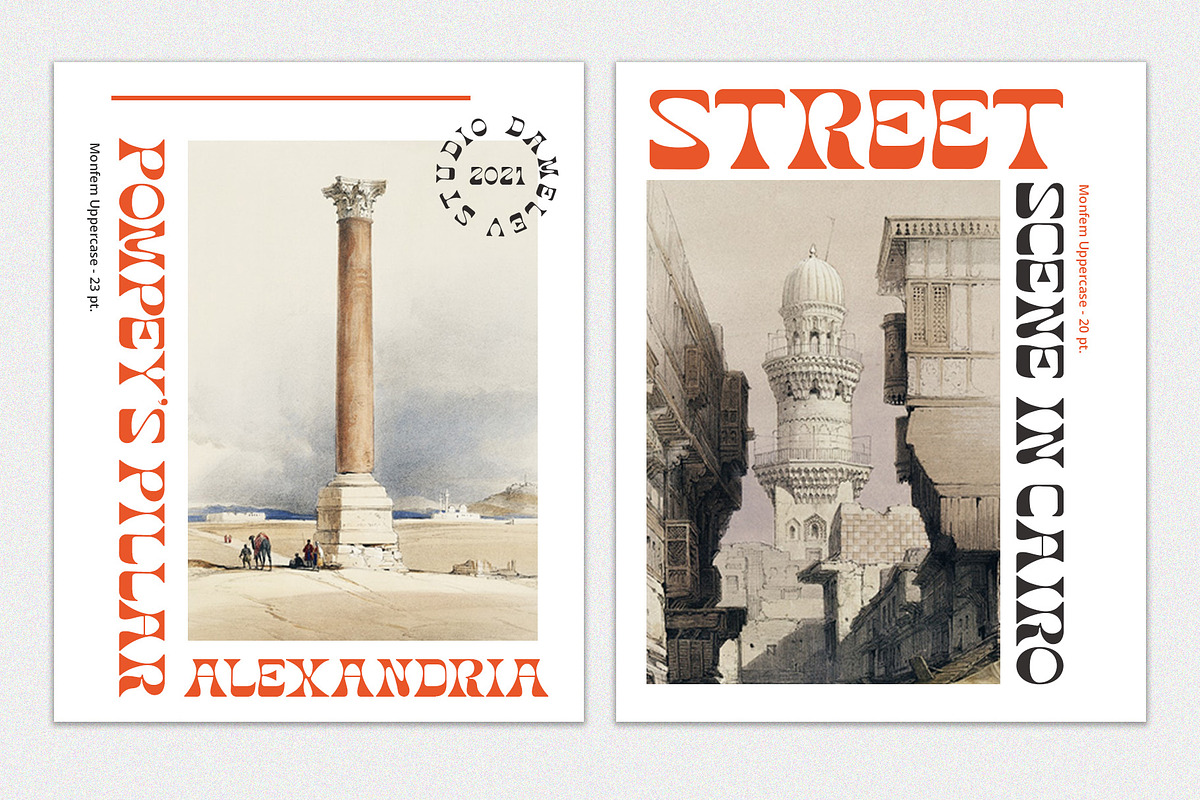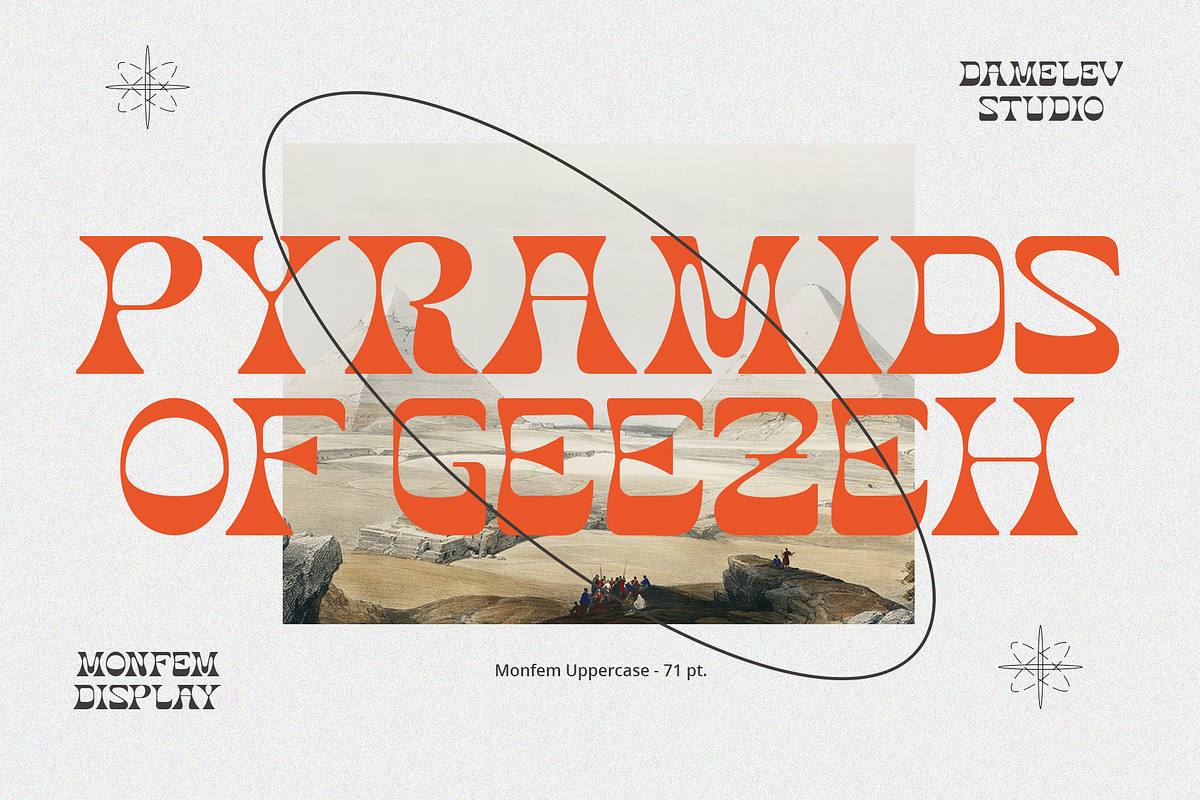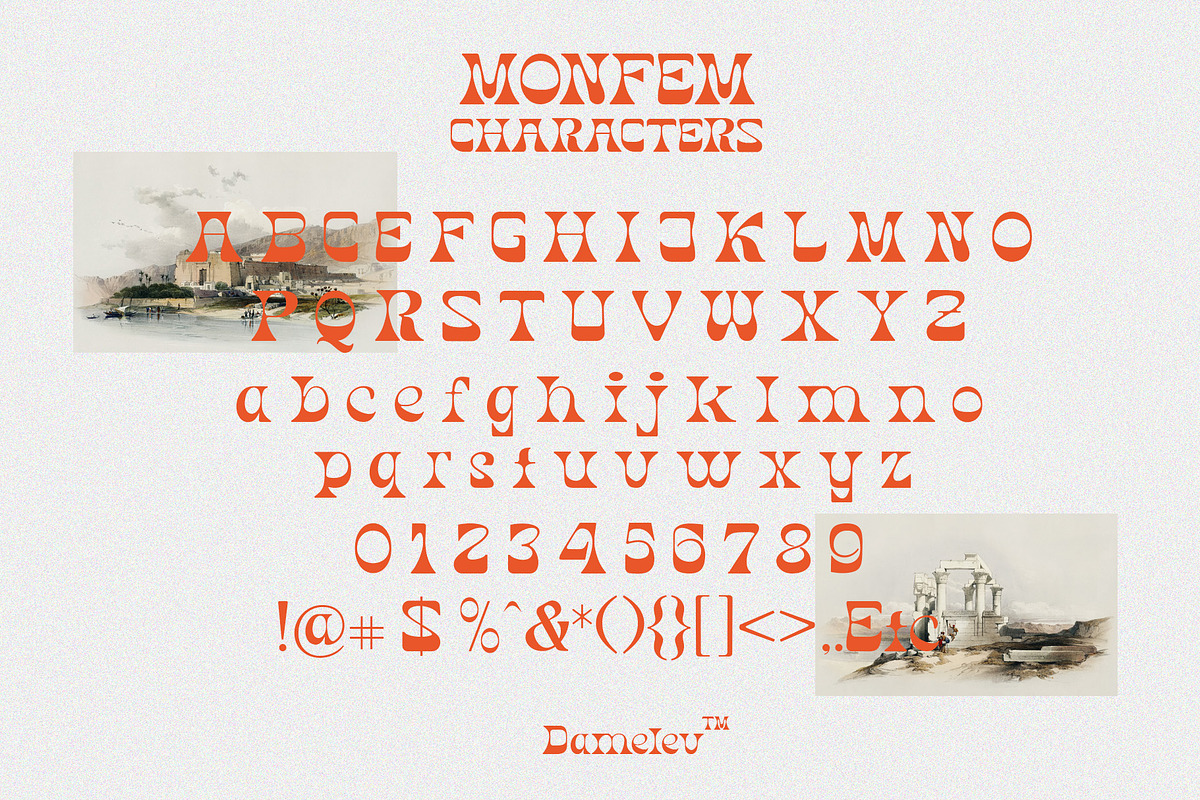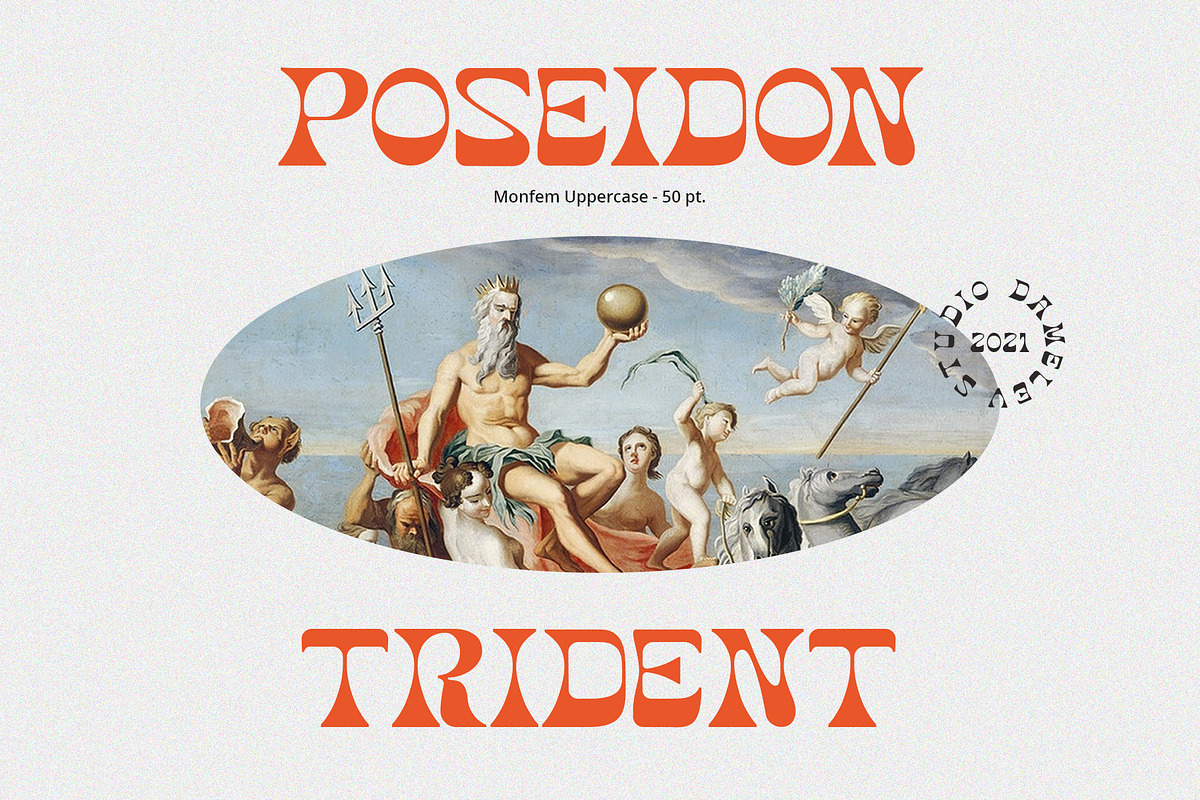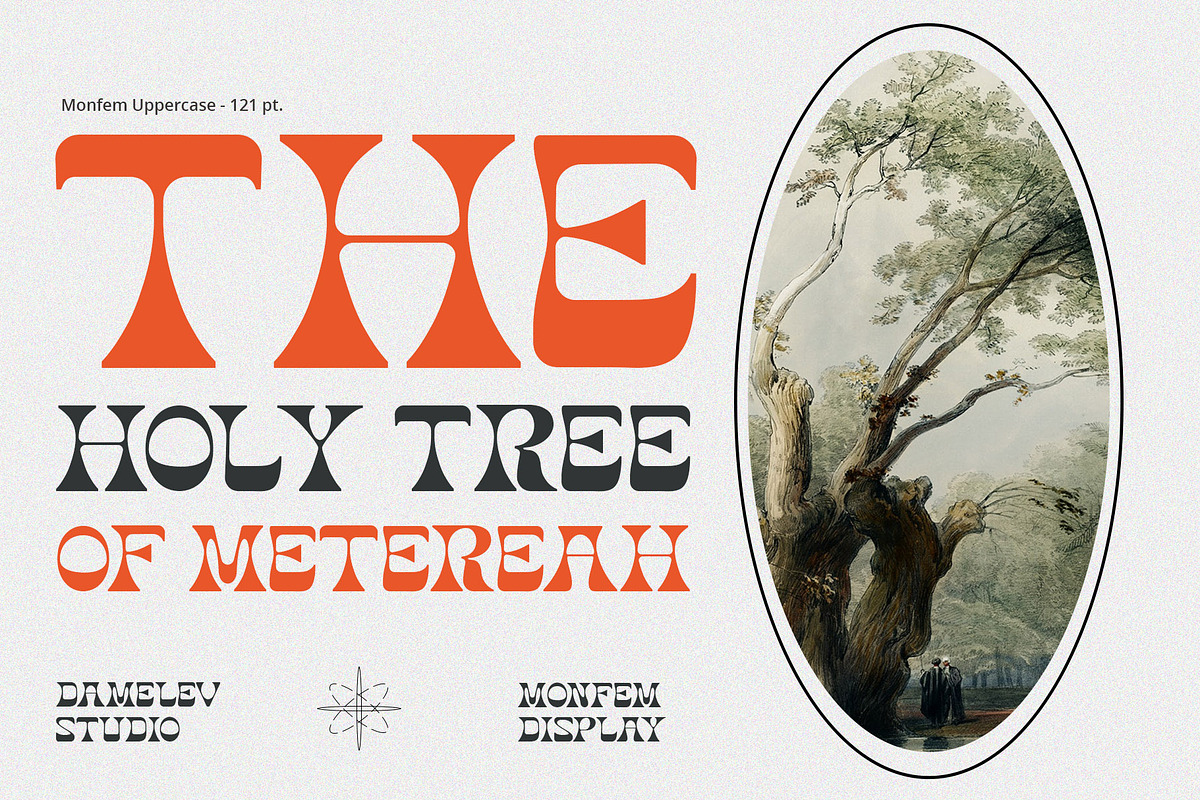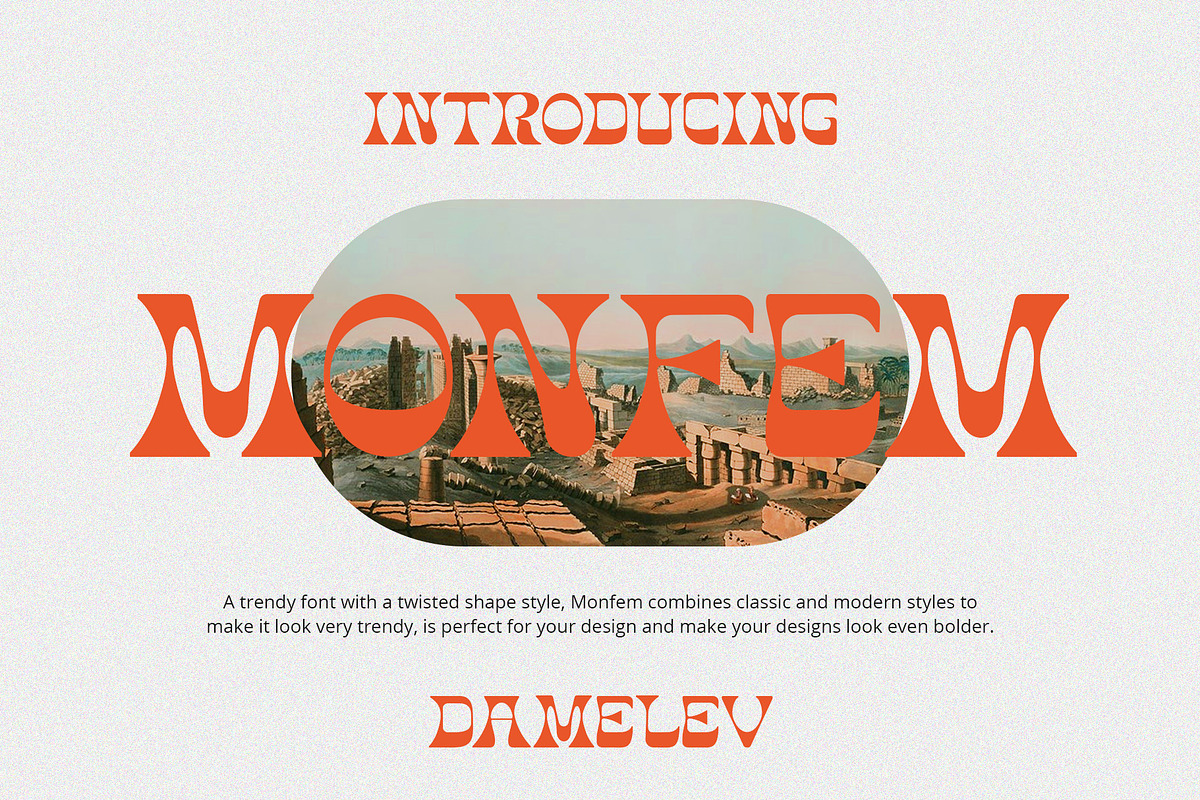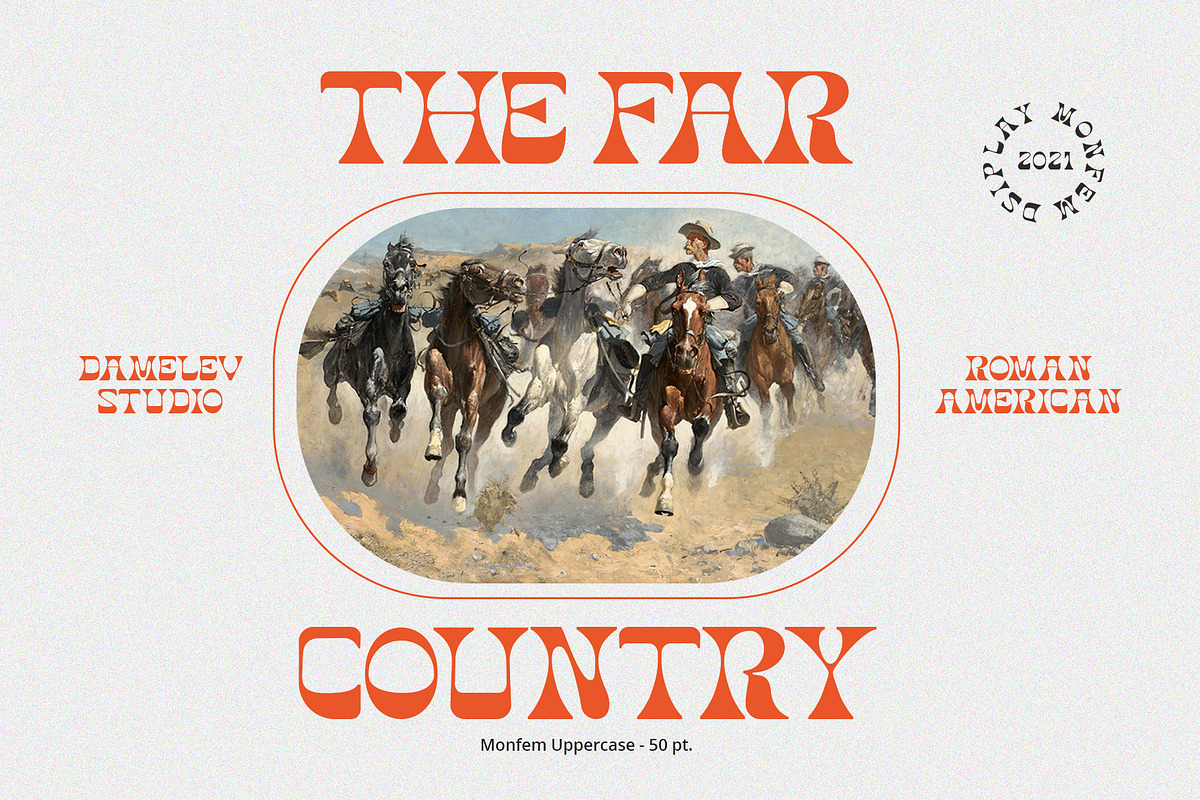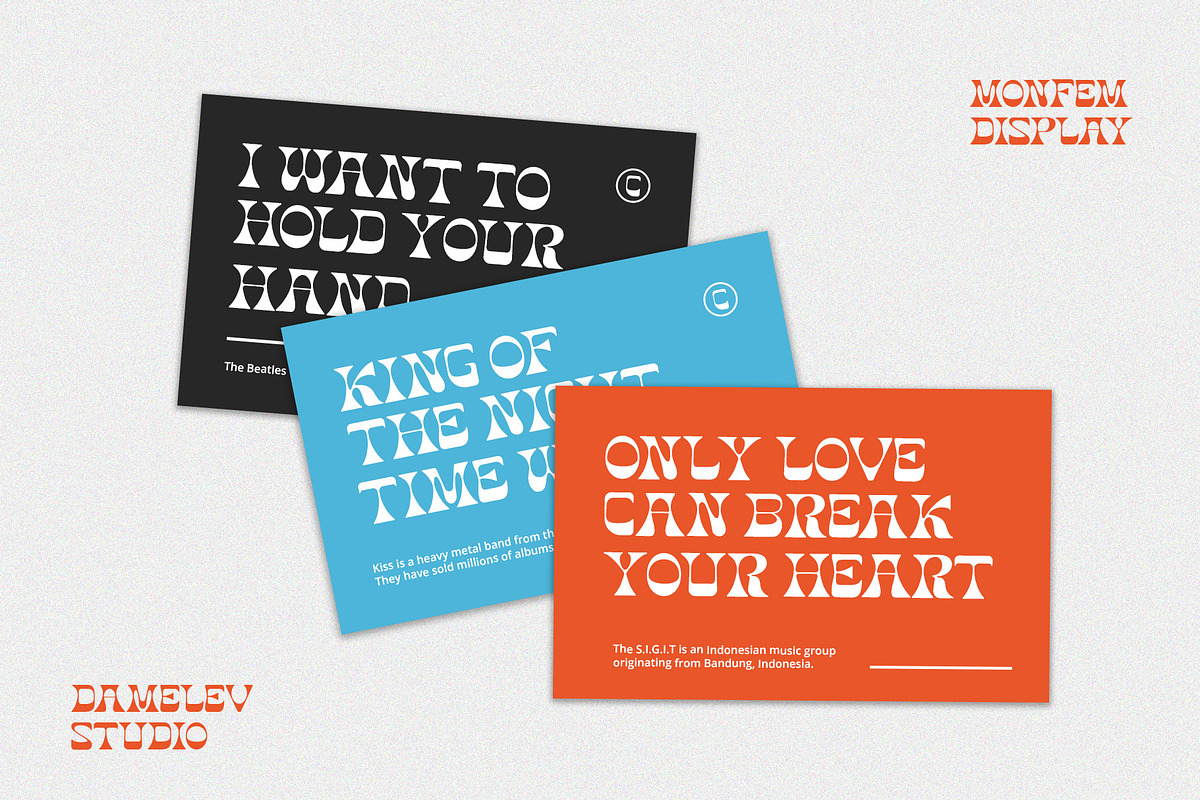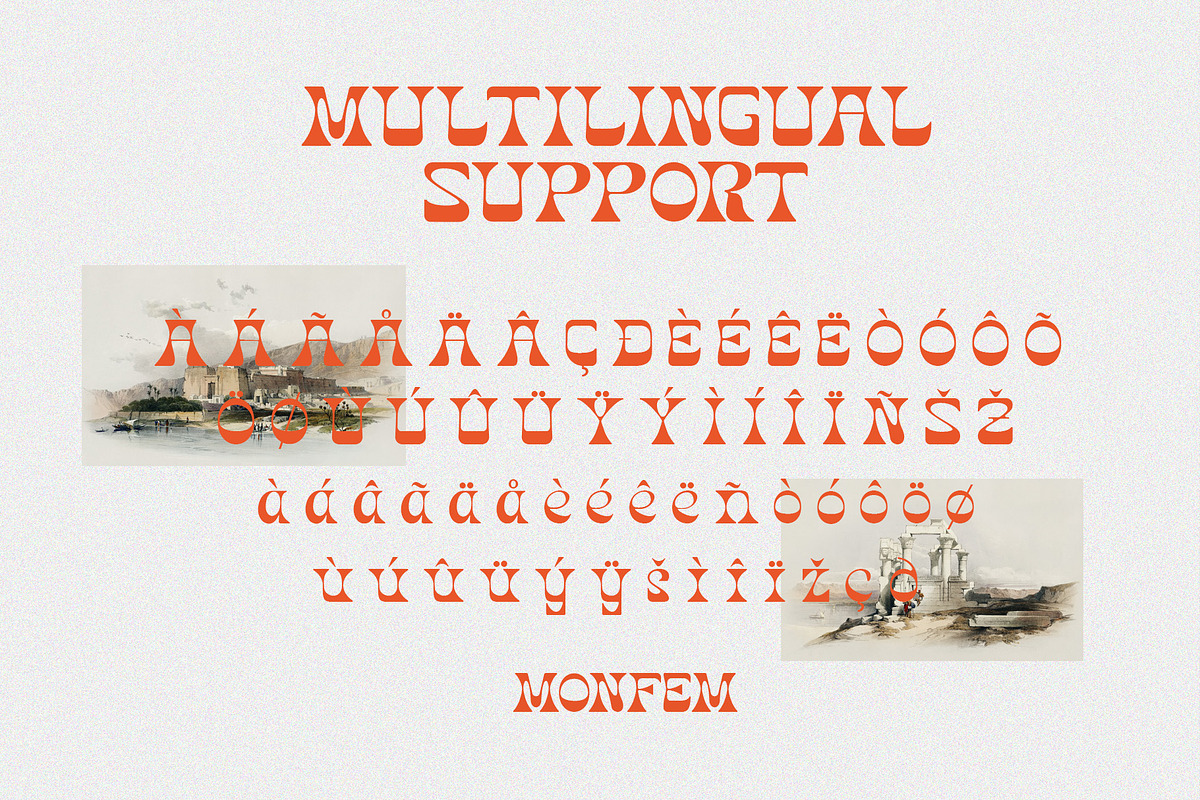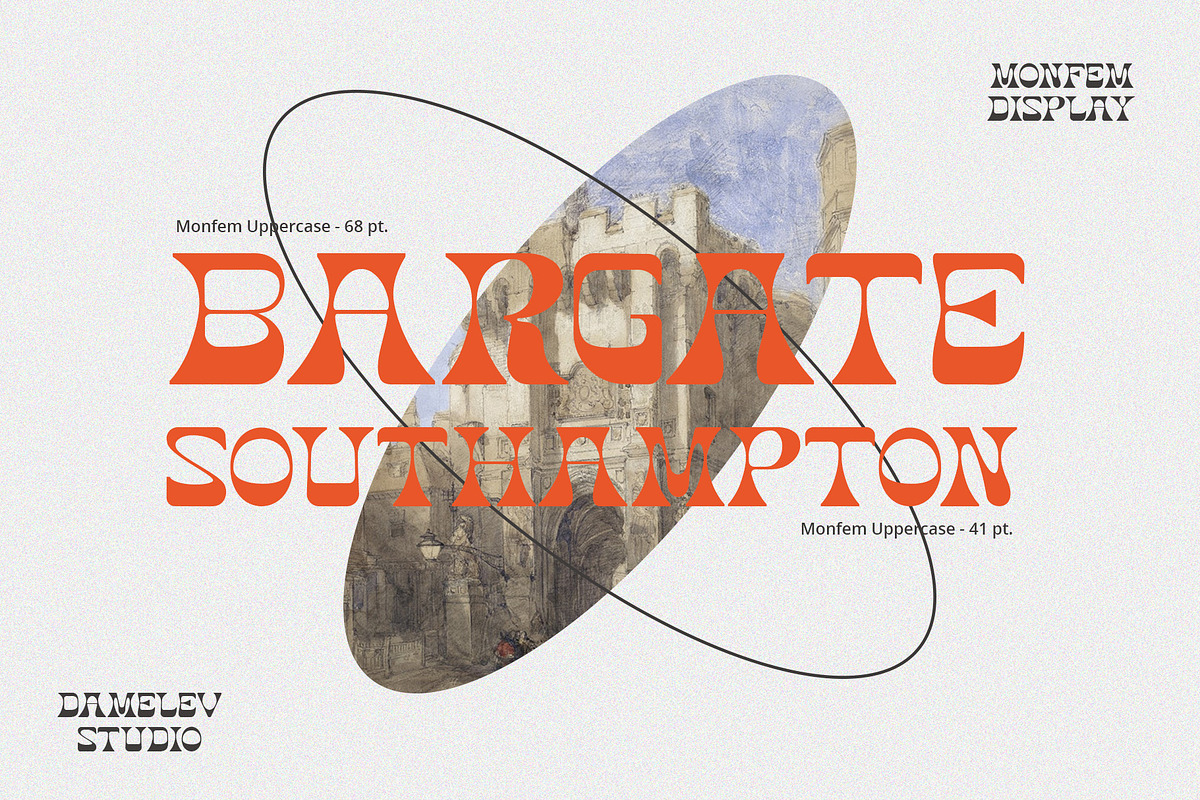
Monfem
A trendy typeface with a twisted shape style, Monfem combines classic and modern styles to make it look very trendy, is perfect for your design and make your designs look even bolder.
Gorgeous font! High quality and really elevated this project (without me having to do any custom type design—big win!).
I really love this font for it's versatility. It can look Southwestern next to a cactus and 70's next to a daisy. I find myself using it a lot and might have a slight obsession!